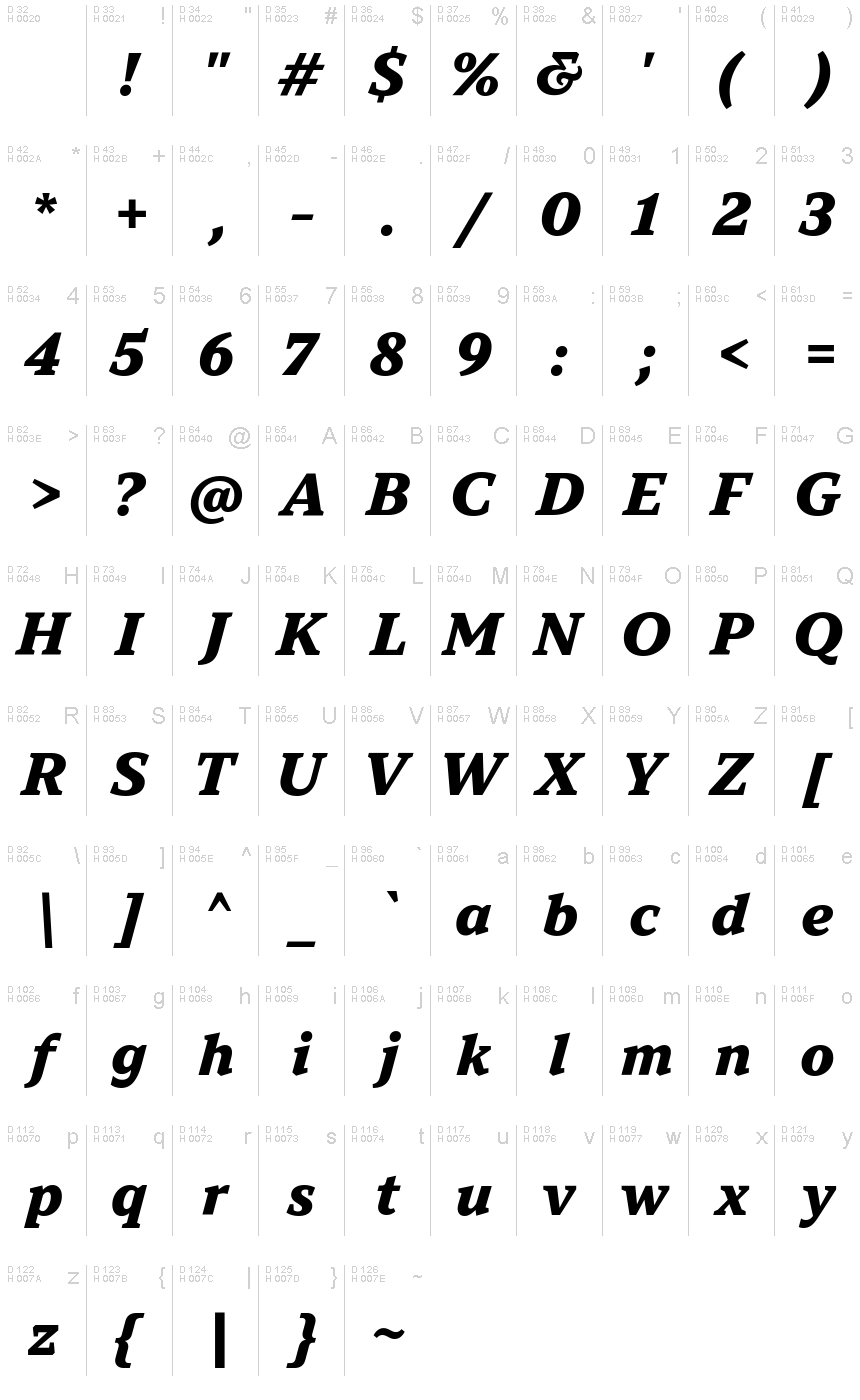
TT Norms Pro Serif Trl XBd It
TT Norms Pro Serif XBd It font, part of the TT Norms Pro Serif family designed by TypeType Foundry, captivates with its bold elegance and refined artistry. This serif typeface boasts a striking presence, characterized by its commanding strokes and sophisticated curves that exude confidence and authority.
Visually appealing, the font balances modernity with classic charm. Its assertive nature makes it ideal for headlines and branding that require a strong narrative touch. The unique character of this font lends itself beautifully to editorial design, promotional materials, or any project where clarity meets style.
Whether gracing a magazine cover or an upscale website, TT Norms Pro Serif XBd It ensures messages are delivered with elegance and impactful clarity. Its versatile yet distinctive flair is perfect for elevating any visual communication.